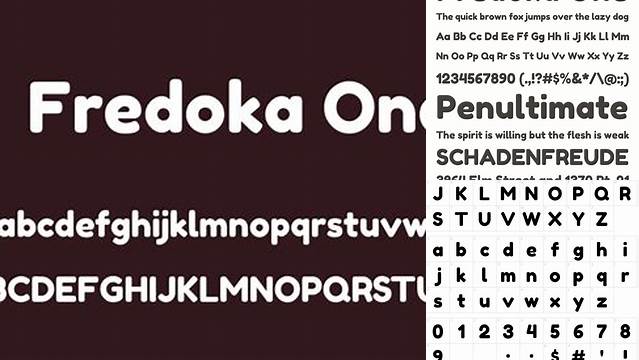
Are you on the hunt for a font that screams fun, friendliness, and approachability? Look no further, guys! Fredoka One Regular might just be the perfect typeface to add a dash of personality to your projects. This Google Font is a total gem, especially if you're aiming for a playful and engaging vibe. In this article, we'll dive deep into what makes Fredoka One Regular so special, how you can use it, and why it's a fantastic option for a wide range of design needs.
What Makes Fredoka One Regular So Awesome?
When you're choosing a font, it's not just about the letters themselves, it's about the feeling they evoke. Fredoka One Regular is a bold, rounded sans-serif font that instantly gives off a friendly and approachable vibe. Think bouncy castles, ice cream parlors, and children's books – that's the kind of energy this font brings to the table. Its rounded terminals and slightly condensed form give it a unique and memorable character that sets it apart from more generic sans-serif options.
Key Characteristics of Fredoka One Regular:
- Bold and Playful: The boldness of the font ensures readability, while the rounded shapes inject a sense of fun. This makes it ideal for headings, logos, and anything where you want to grab attention without being too serious.
- Rounded Terminals: The rounded ends of the strokes give Fredoka One Regular a soft and gentle feel, which contributes to its overall friendly personality. This is a crucial element in making the font so approachable and inviting.
- Slightly Condensed: The slightly condensed nature of the font allows you to fit more text into a smaller space without sacrificing legibility. This is a practical advantage, especially when you're working with limited space in your designs.
- Excellent Readability: Despite its unique character, Fredoka One Regular maintains excellent readability, making it suitable for both display and body text (though it shines brightest in headlines and shorter paragraphs).
Unleashing the Power of Fredoka One Regular: Design Applications
Okay, so you know Fredoka One Regular is cool, but where can you actually use it? The possibilities are vast, but here are some prime examples where this font really shines:
- Logos and Branding: Fredoka One Regular is a fantastic choice for logos, especially for businesses that want to project a friendly, approachable, and playful image. Think toy stores, children's clothing brands, or even tech startups with a fun culture. The font's boldness ensures it stands out, while its rounded shapes make it feel less corporate and more human. Imagine a logo for a kids' yoga studio or a cheerful bakery – Fredoka One Regular would be a perfect fit.
- Headlines and Titles: This is where Fredoka One Regular truly excels. Its bold nature and unique character make it a headline superstar. Use it for website headers, poster titles, or even book covers. The font will instantly grab the viewer's attention and set a positive tone. A catchy headline in Fredoka One Regular can make all the difference in drawing readers into your content.
- Website Design: Fredoka One Regular can add a touch of personality to your website. Use it for headings, call-to-action buttons, or even short paragraphs of text. Just be mindful of using it sparingly in body text, as its boldness might become overwhelming for longer reads. A well-placed Fredoka One Regular headline can significantly enhance the user experience and make your website more memorable.
- Print Materials: Brochures, posters, flyers, oh my! Fredoka One Regular is equally at home in print. Its readability ensures your message comes across clearly, while its playful nature adds a touch of fun to your designs. Consider using it for event posters, promotional flyers for a family-friendly event, or even the cover of a children's book.
- Social Media Graphics: In the crowded world of social media, standing out is crucial. Fredoka One Regular can help your graphics grab attention. Use it for text overlays on images, quote graphics, or even your profile name. Its bold and friendly aesthetic will resonate with your audience and help you build a memorable brand presence.
Pairing Fredoka One Regular with Other Fonts: Creating Visual Harmony
Even the most awesome font can't do it all alone. Pairing Fredoka One Regular with other fonts is essential to create visually appealing and balanced designs. Here are a few tips and suggestions for font pairings that work wonders:
- The Classic Contrast: Fredoka One Regular + a Serif Font: Pairing a bold, sans-serif font like Fredoka One Regular with a more traditional serif font can create a beautiful contrast. The serif font provides a touch of elegance and sophistication, while Fredoka One Regular adds a playful element. This combination is perfect for designs that need to balance fun with professionalism. Think of using Fredoka One Regular for headings and a serif font like Merriweather or Playfair Display for body text.
Fredoka One Regular: A Font for Everyone
In conclusion, Fredoka One Regular is a fantastic font choice for anyone looking to add a touch of fun and friendliness to their designs. Its bold, rounded shape and excellent readability make it a versatile option for logos, headlines, websites, and more. And, being a free Google Font, it's accessible to everyone. So go ahead, guys, give Fredoka One Regular a try and see how it can transform your projects!